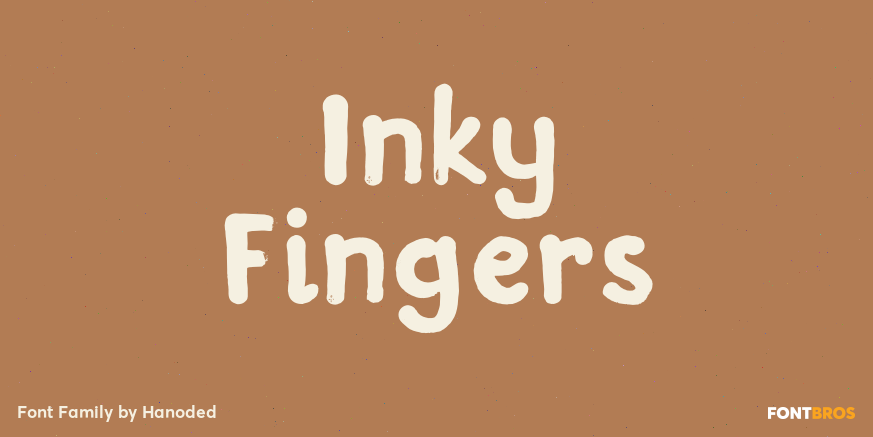
Inky Fingers
Inky Fingers? Well, the name says it all! This rather obese font was made by hand (literally) using my index finger, some sheets of paper and a lot of Chinese ink. As the eco-paper absorbed quite a lot of ink, I had to do a second ink-run! Inky Fingers…